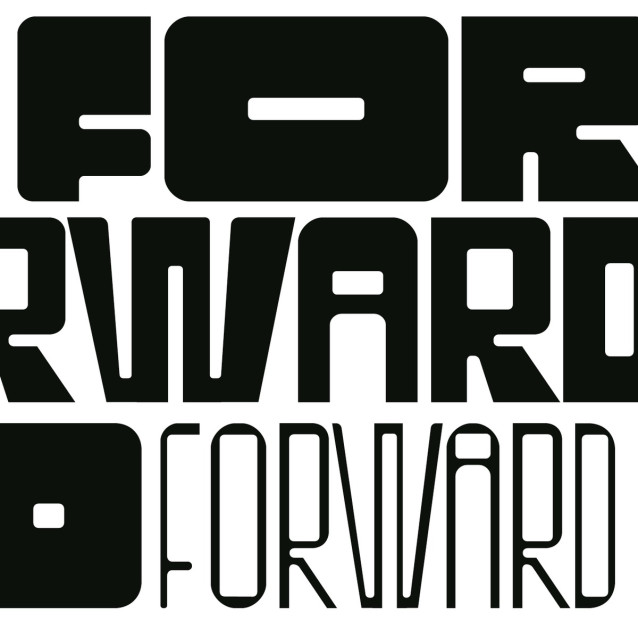
TT Turns Font Family
TT Turns Font Family — foundational and striking all at once! TT Turns is a geometric sans serif with distinctive rounded glyphs and expressive overhanging elements. This versatile font has a concise appearance and is highly readable at small sizes, while at large point sizes, it becomes a display font and reveals its character to the fullest. It’s energetic, strong, and dynamic—a quality that is especially evident in the italic font styles. In ‘Kk’ and ‘Жж’, the diagonals meet the stem at a steep angle, creating a striking triangle of white space. This adds a sharp quality to the design. Other characteristic details include the sharp terminals on ‘Ss’, ‘Cc’, ‘a’, ‘Ээ’, and ‘Зз’, an expressive leg on the ‘R’, and pronounced protruding strokes on the left parts of ‘Лл’ and ‘Дд’. You can add even more display character to the font using its striking stylistic sets. For instance, the ‘a’ can be changed from a double-storey to a single-storey form, the ‘g’ from a single-storey to a double-storey, the shape of the ‘G’ can be made rounded, the glyphs for ‘Жж’ and ‘Kk’ can be changed, and the shape of the ‘Q’s tail can be transformed. And if, on the contrary, you wish to calm the typesetting, a set with more restrained tail forms for the Cyrillic ‘Уу’ and Latin ‘y’ is available. The font also includes ligatures, numerous OpenType features that significantly expand its capabilities, and a variable style that changes along the weight and slant axes. TT Turns is suitable for a multitude of different tasks: from use in running text, on the web, and in applications to branding and packaging design. It can be used with equal effectiveness in virtually any field. TT Turns includes: – 19 styles: 9 uprights, 9 italics, and 1 variable font – 931 glyphs per style – 34 OpenType features – Support for over 230 languages